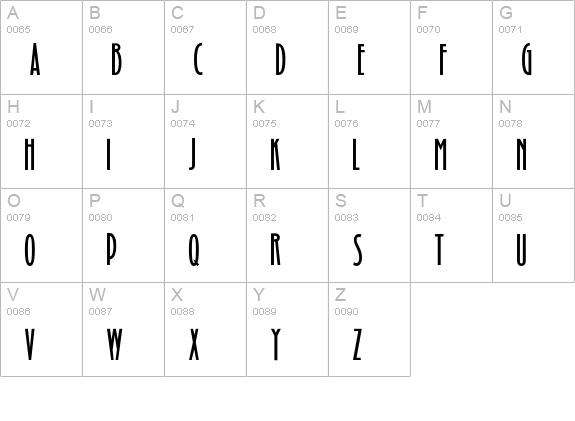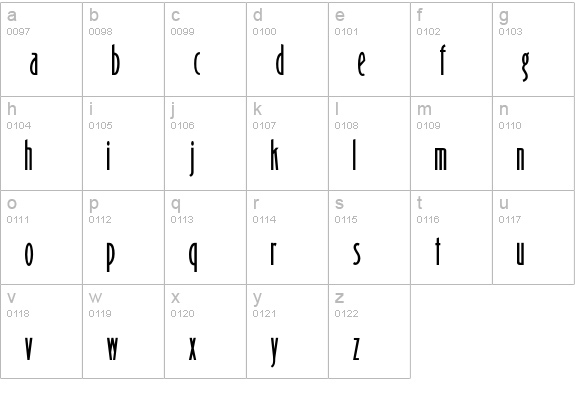
BinnerGothic Font Details
BinnerGothic is a striking and versatile font that beautifully blends vintage charm with a modern edge. This font exudes an air of mystery and sophistication, making it perfect for a wide range of design projects. Its bold, angular letterforms evoke a sense of strength and power, while its unique character adds a touch of elegance to any layout. BinnerGothic is not only visually captivating but also incredibly legible, making it a great choice for both headlines and body text. Whether you're designing a poster, logo, website, or any other creative project, this font is sure to make a bold statement. The best part is that BinnerGothic is available for free download at FontsMarket.com. So go ahead and add this stunning font to your collection today and let your creativity shine with BinnerGothic!